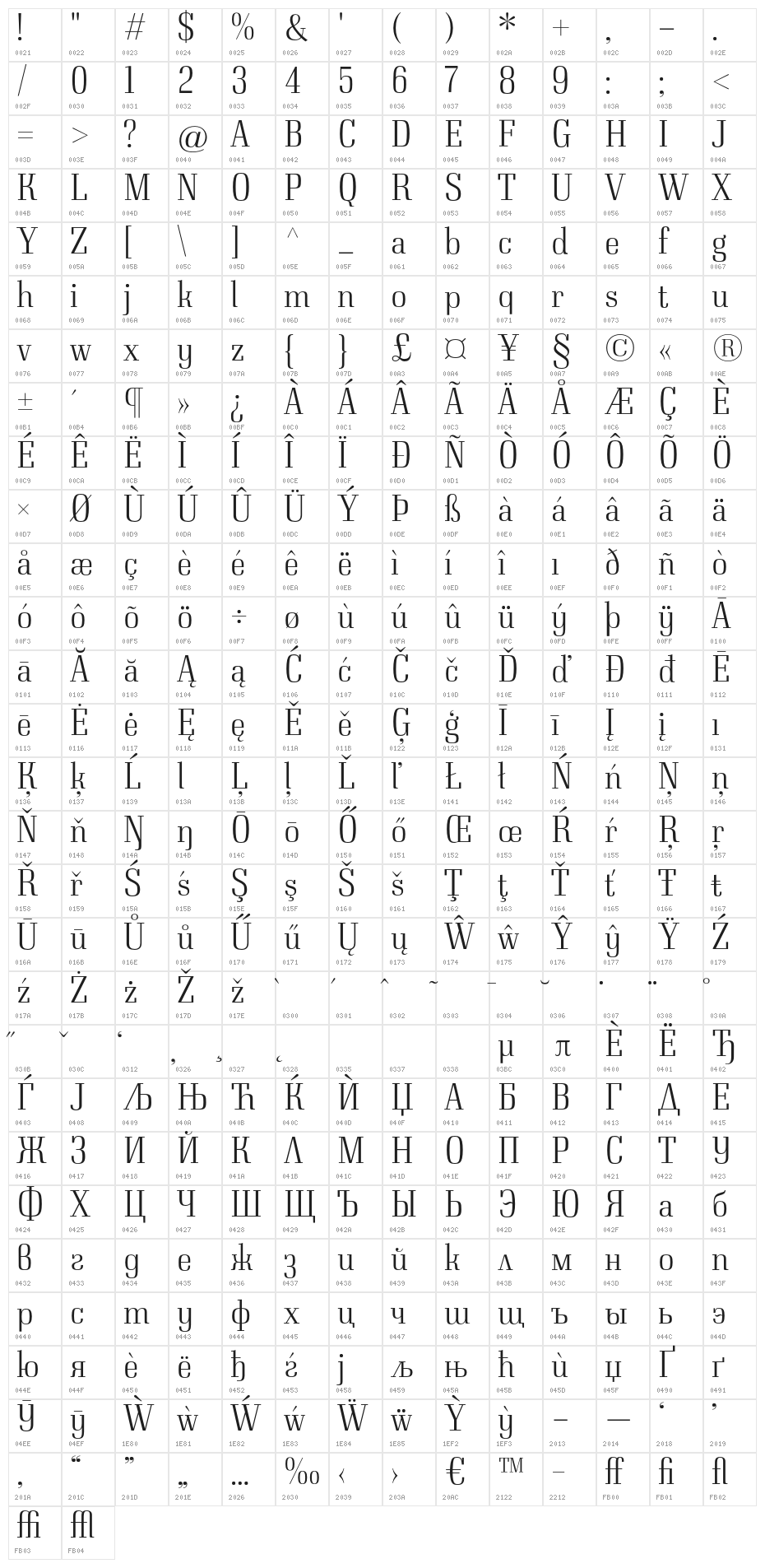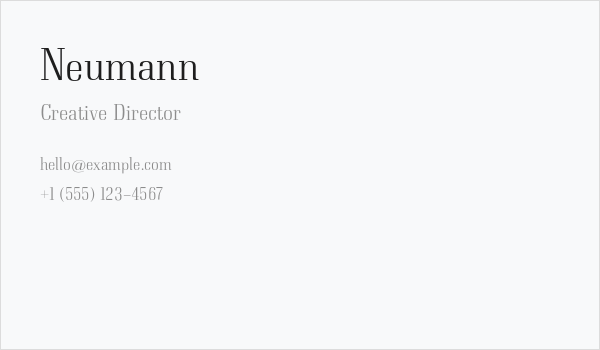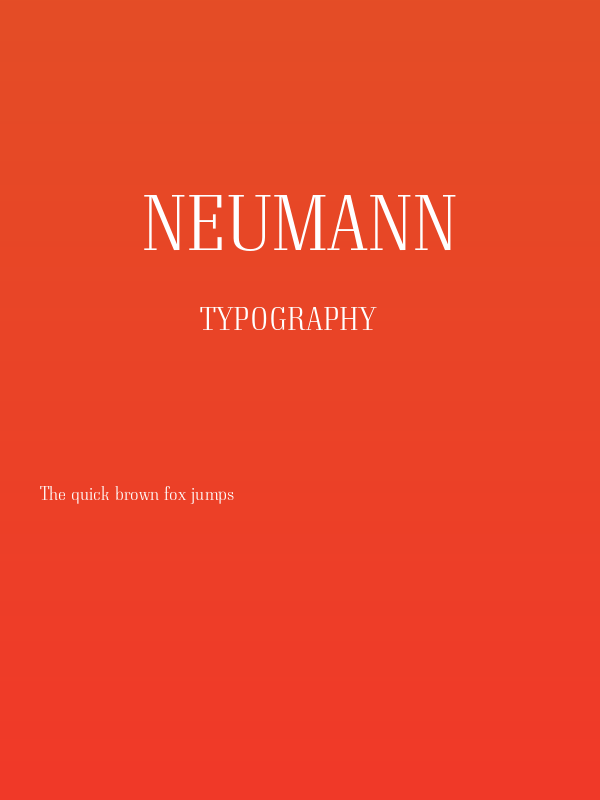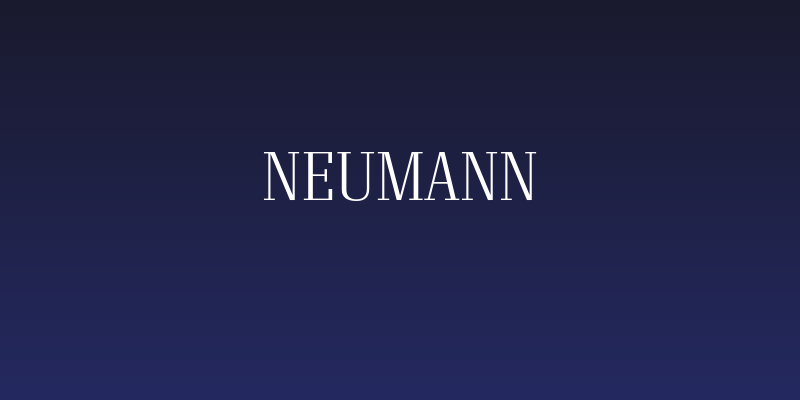
Neumann Font
Neumann Description
This font features a classic serif style with a modern twist, characterized by its elegant and refined letterforms. The uppercase letters are tall and stately, while the lowercase letters maintain a balanced and harmonious appearance. The numerals are clear and easily readable, making them suitable for various applications. The special characters are well-designed, complementing the overall aesthetic of the font. The strokes are consistent, with a medium contrast that adds to the font's readability and visual appeal.
| Proposed Projects | Ideal for editorial design, book covers, branding, and formal invitations. |